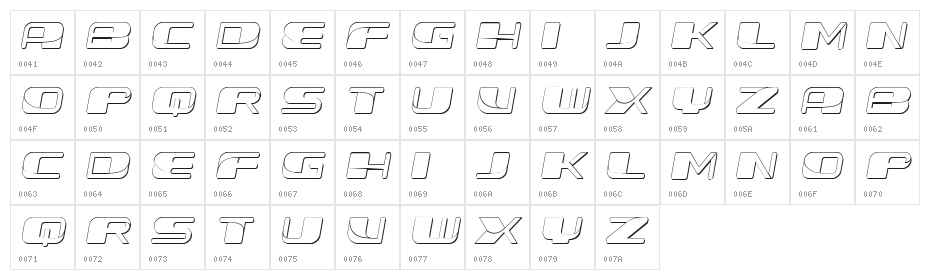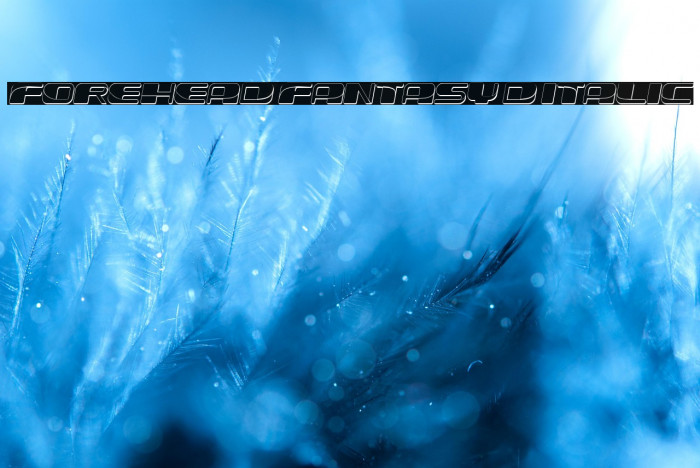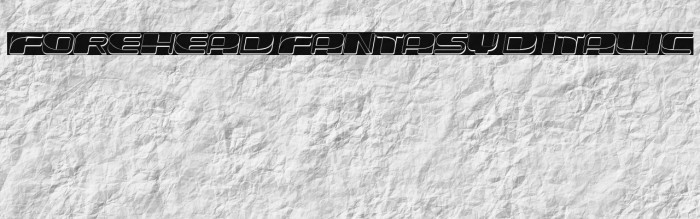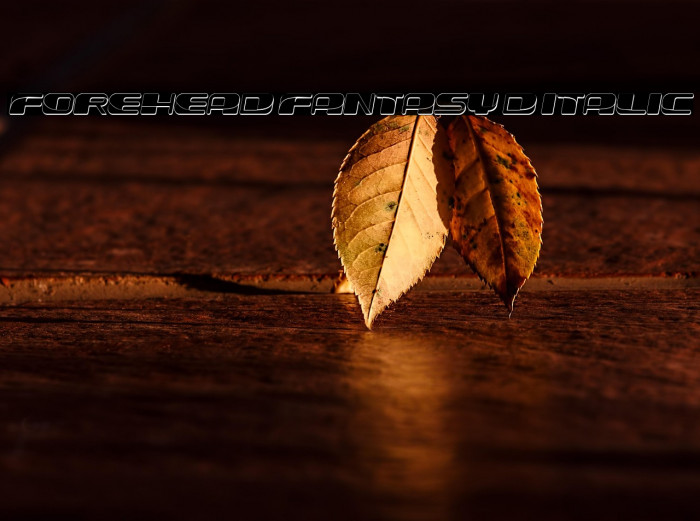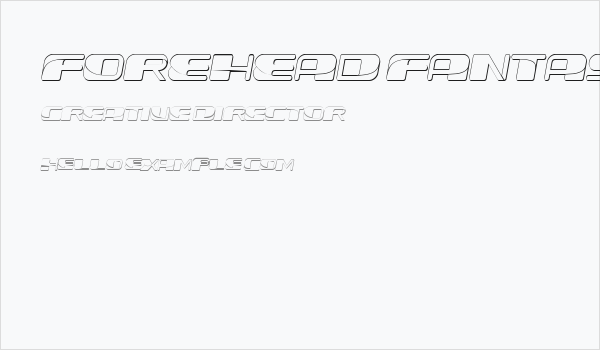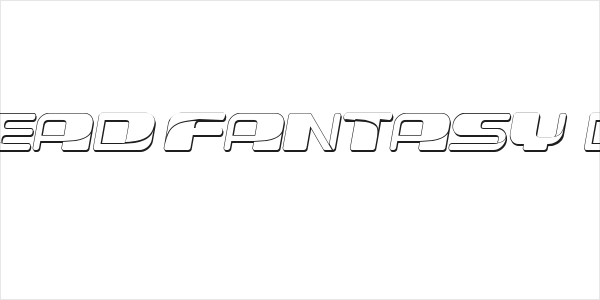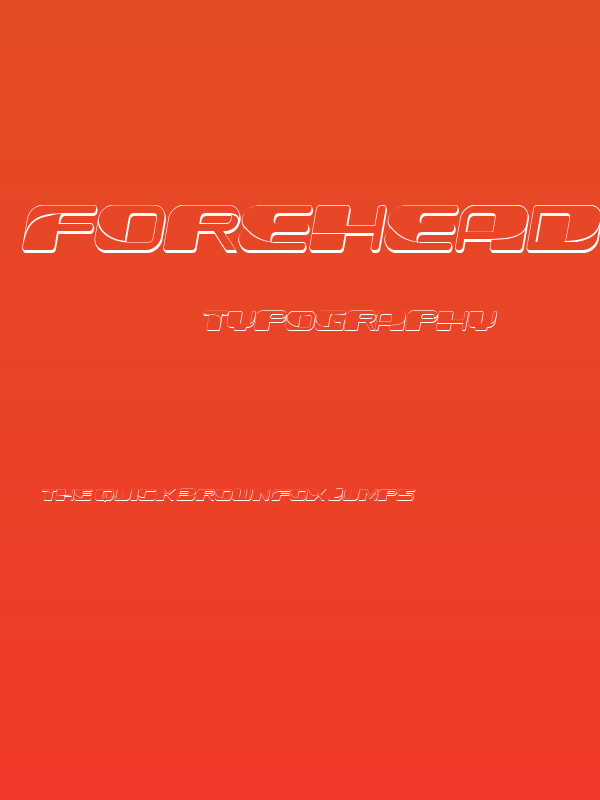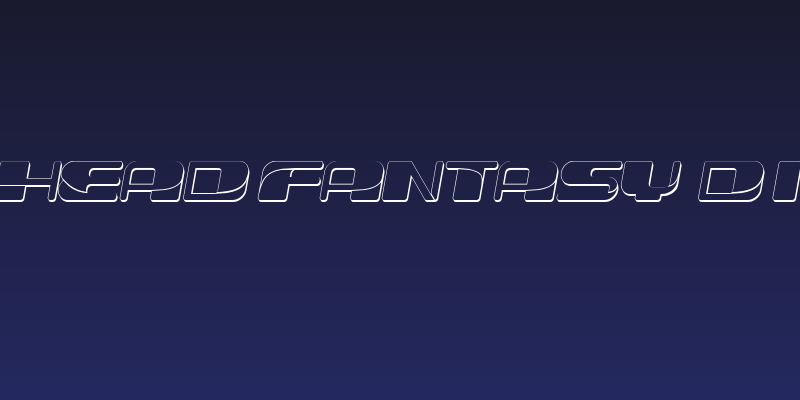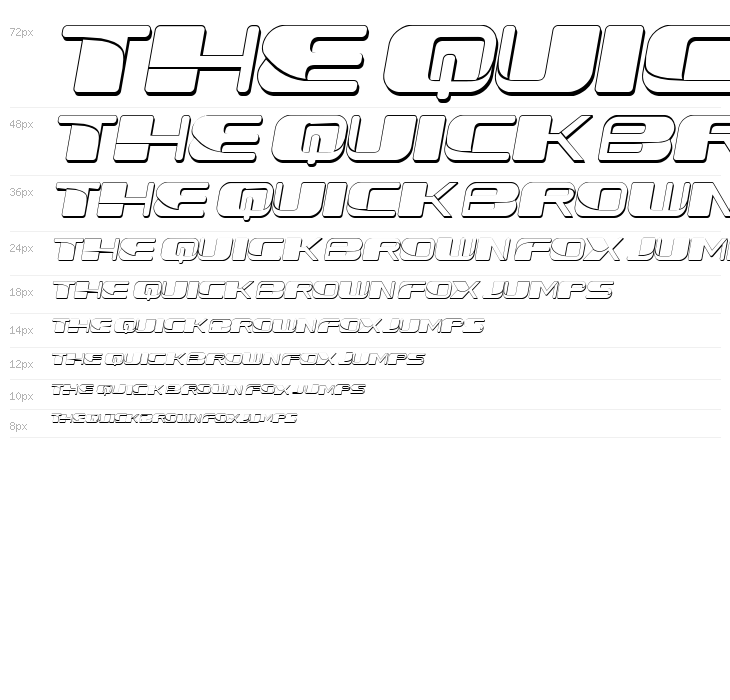
Forehead Fantasy 3D Italic Font
Forehead Fantasy 3D Italic Description
This font features a futuristic and dynamic 3D design with italicized characters, giving it a sense of movement and depth. The letters are outlined with a bold, shadowed effect that enhances the three-dimensional appearance. The style is sleek and modern, with angular cuts and a geometric structure that adds to its contemporary feel. The uppercase and lowercase letters maintain a consistent design, while the numbers and special characters complement the overall aesthetic. This font is ideal for projects that require a bold and eye-catching visual impact.
| Proposed Projects | Ideal for sci-fi themed designs, video game titles, tech branding, and futuristic posters. |